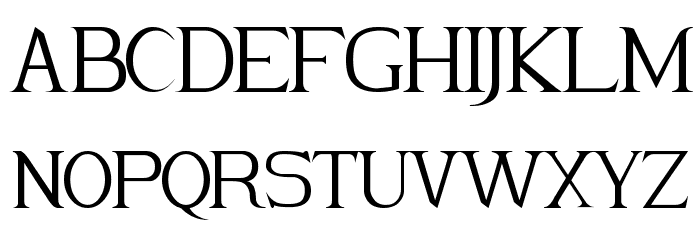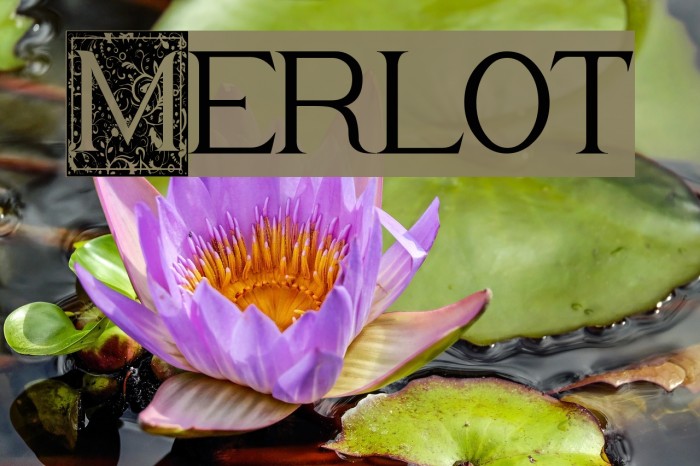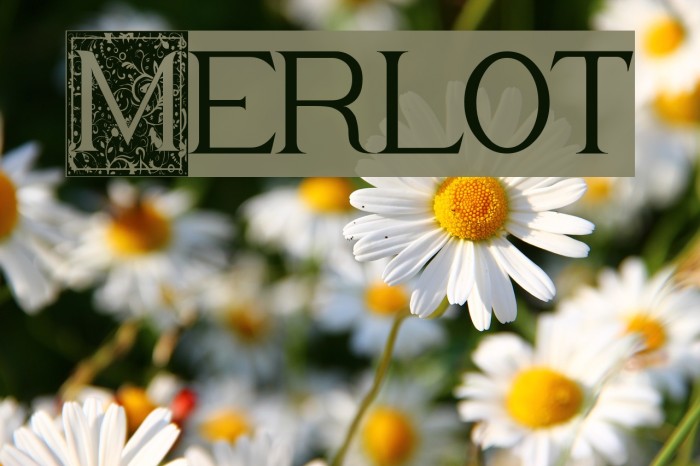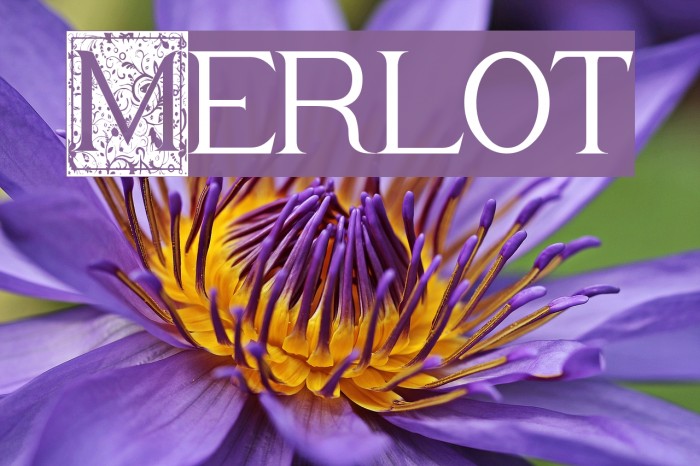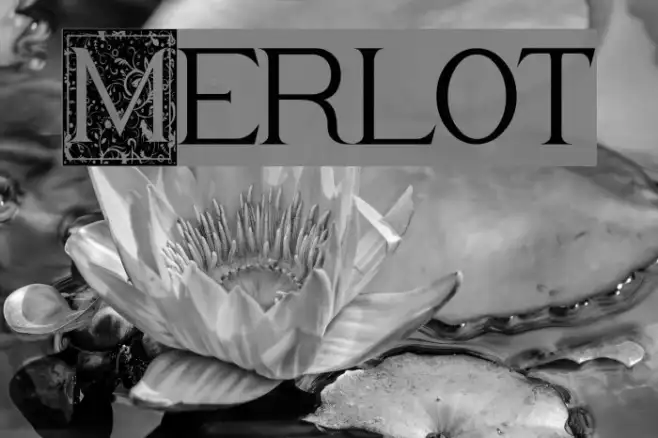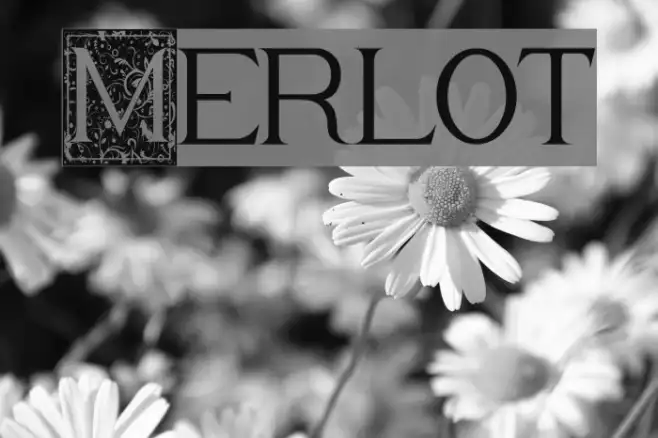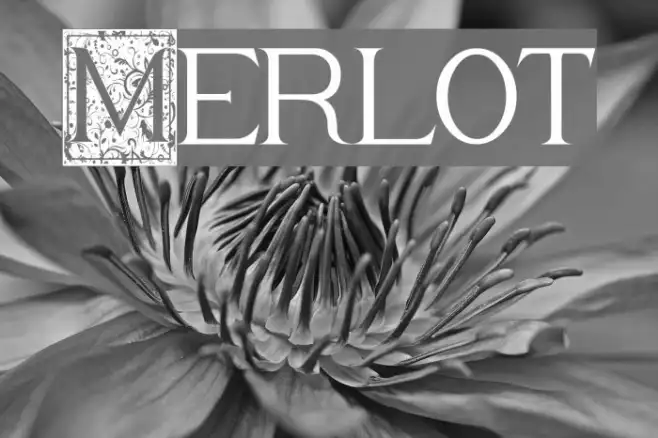
Merlot Font
This font features a unique blend of classic and decorative elements, characterized by its intricate and ornate uppercase letters enclosed in textured boxes, which evoke a sense of vintage elegance. The lowercase letters and numbers maintain a more traditional serif style, offering a contrast between the decorative uppercase and the clean, sophisticated lowercase. The font's overall design is both artistic and functional, making it suitable for a variety of creative applications. Its distinctive style is perfect for projects that require a touch of sophistication and flair.
A decorative serif font with ornate uppercase and classic lowercase characters.
- Proposed Projects: Ideal for wedding invitations, vintage-themed posters, book covers, and branding materials that require a touch of elegance and sophistication.
- Overall Style: Vintage, Decorative
- Use Case: Headlines, Logos, Decorative text